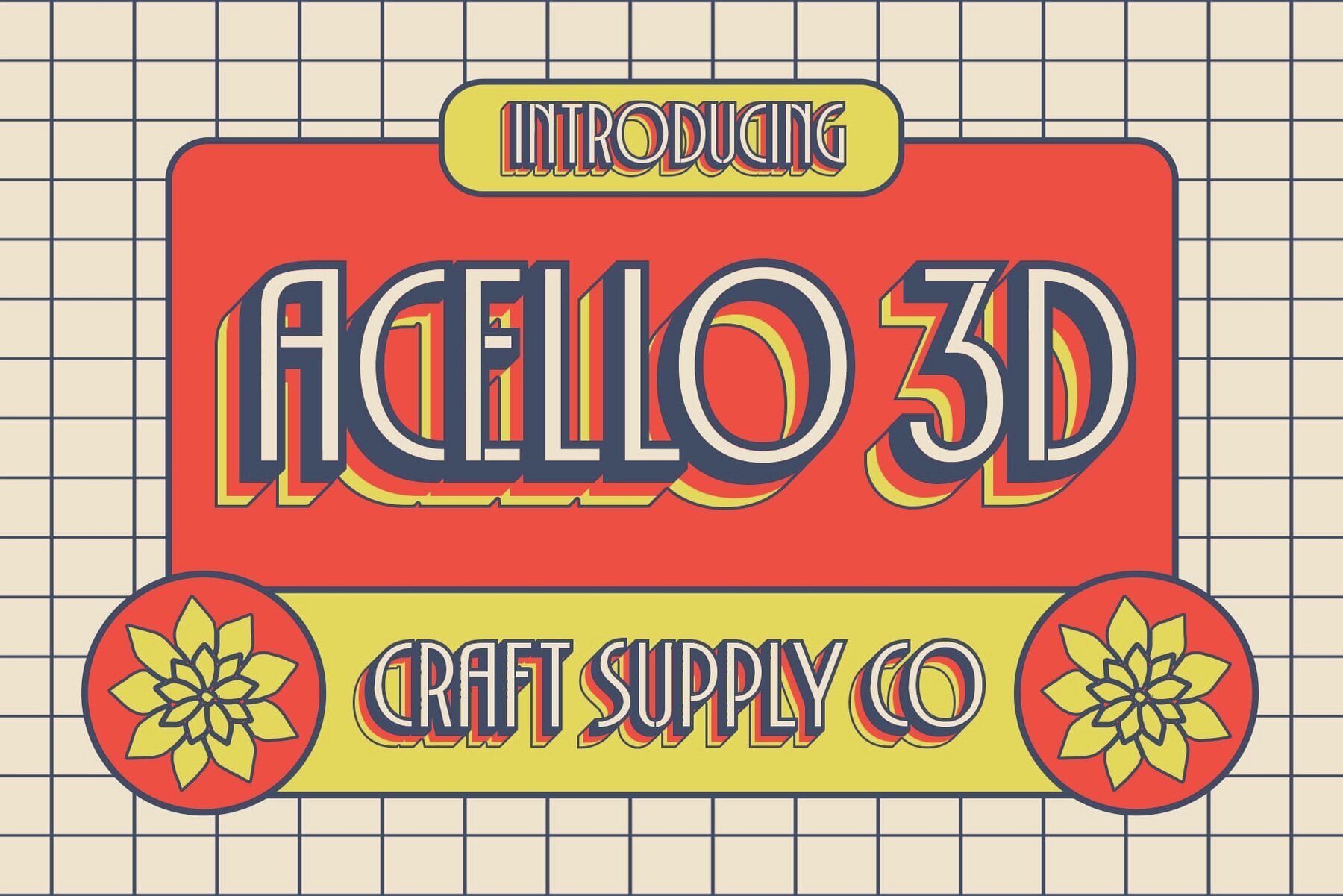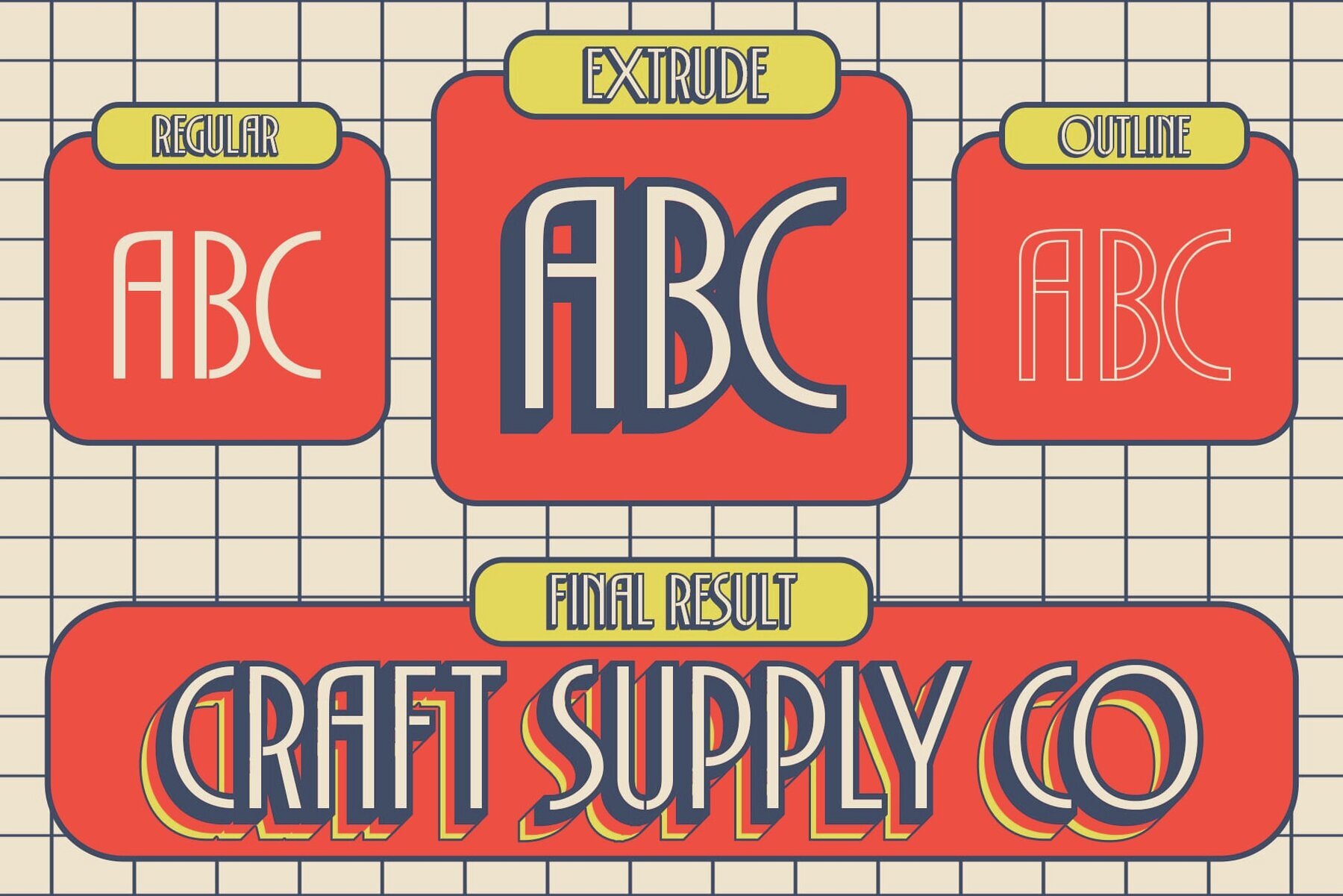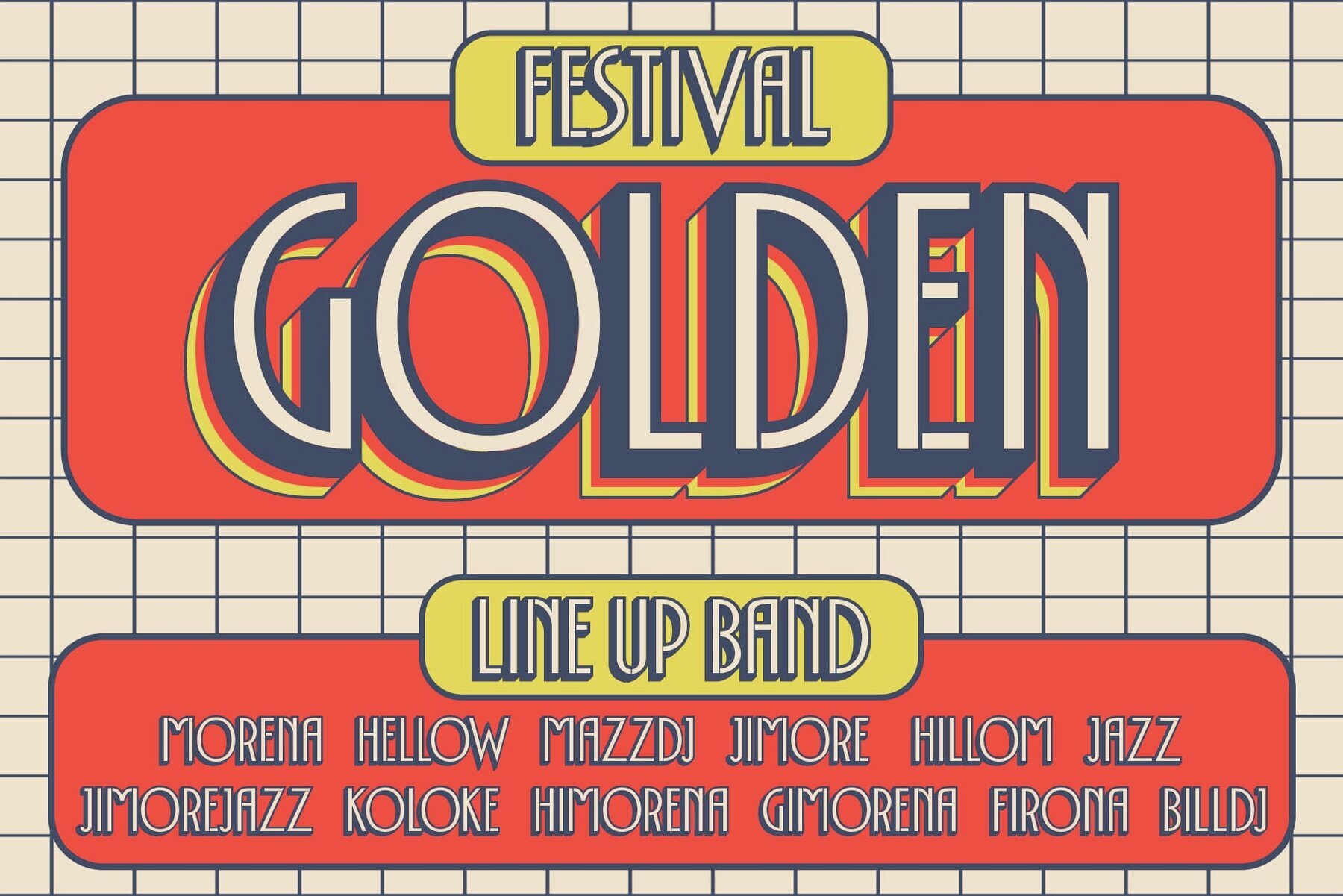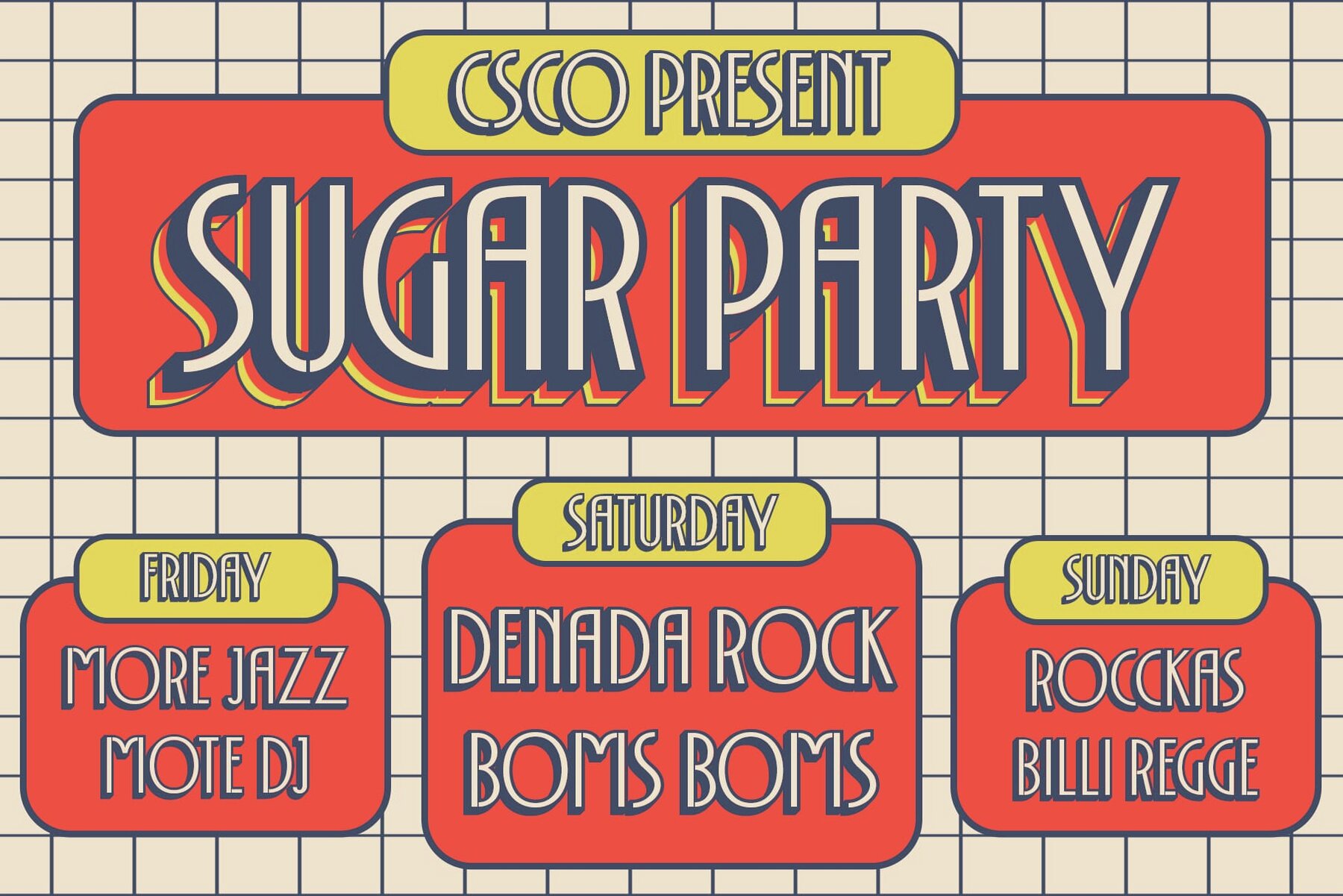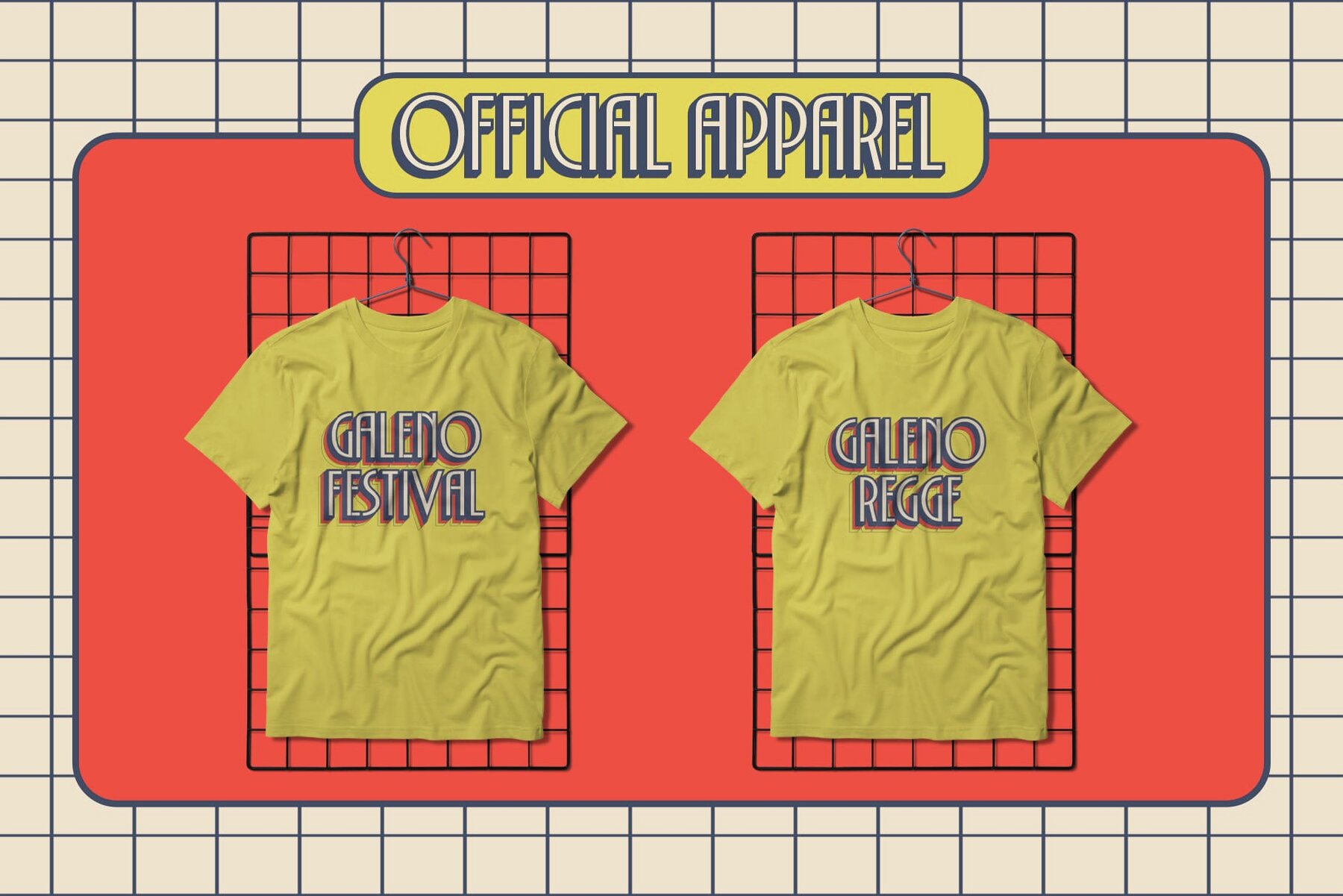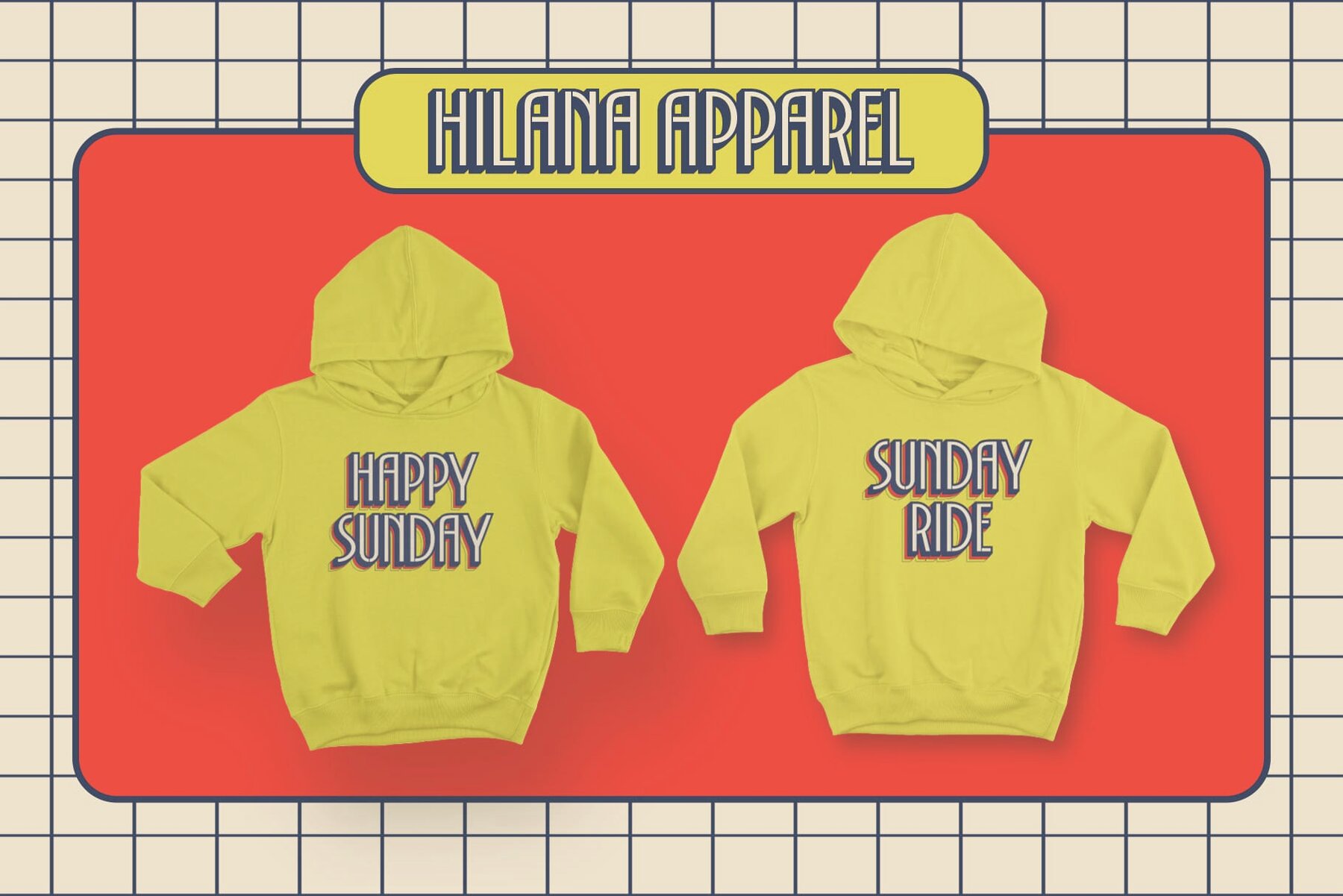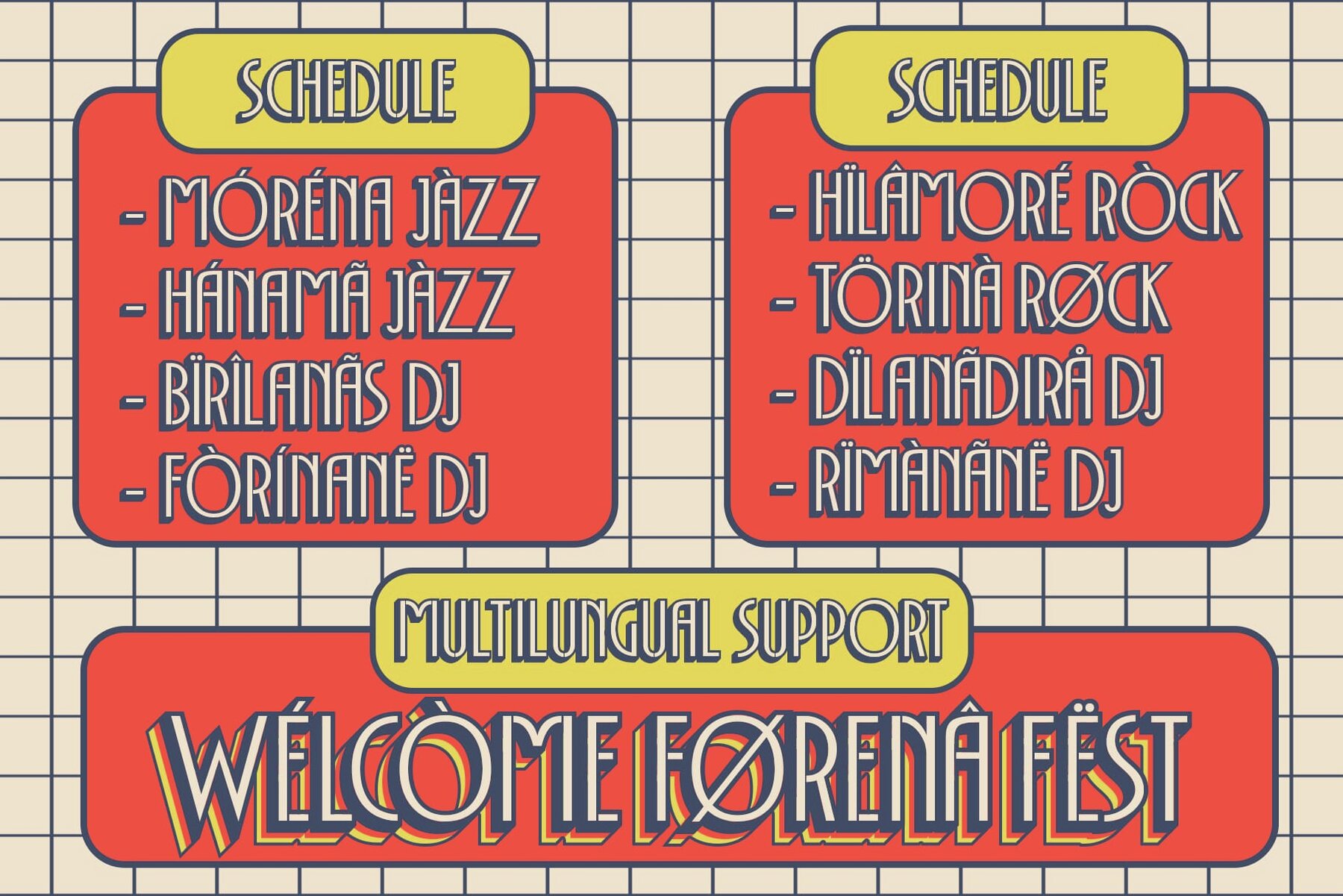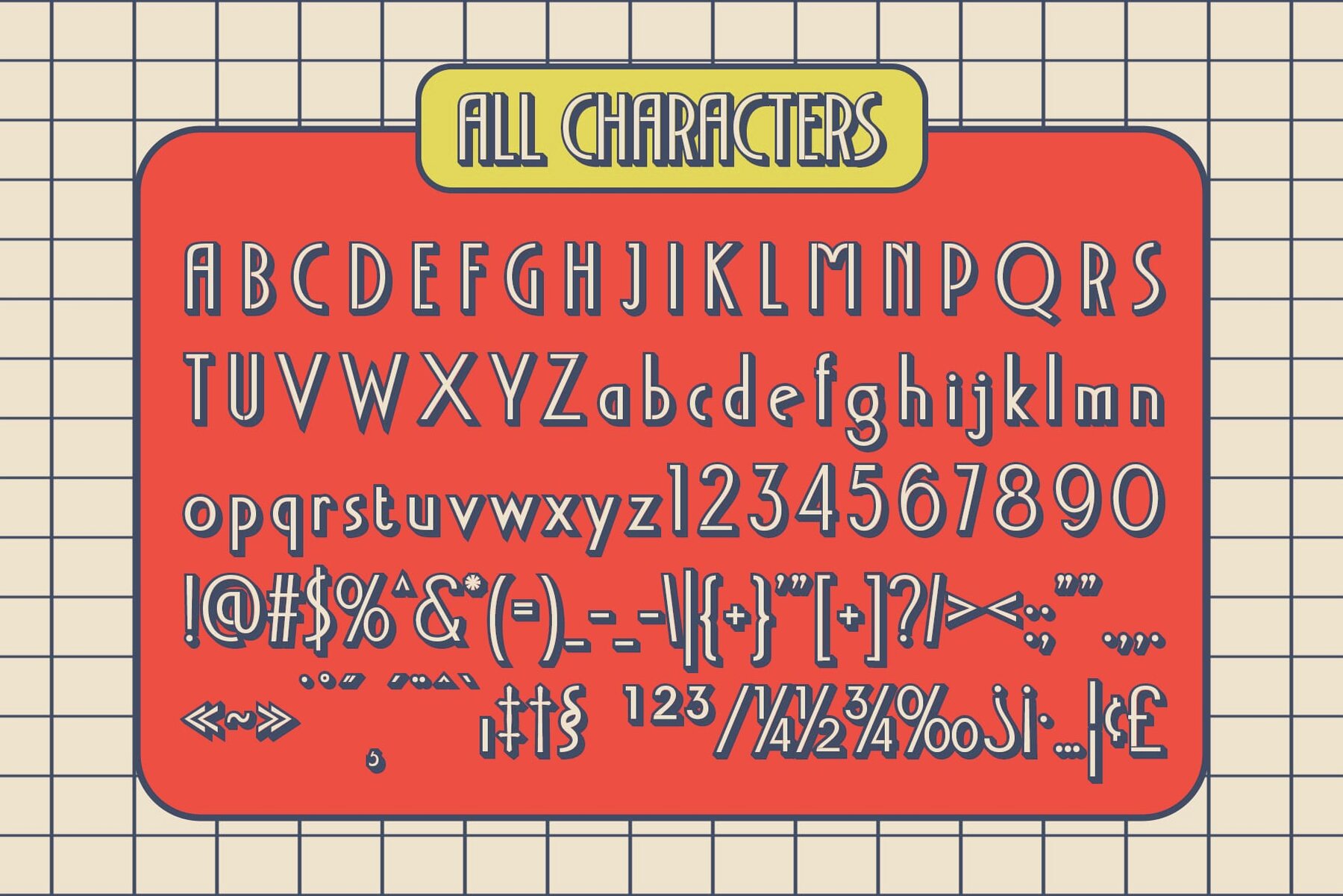
Acello 3D Font
This versatile font strikes a balance between vintage charm and modern elegance, influenced by the iconic Art Deco style. Sleek Sans Serif Design: Acello 3D features low-contrast strokes and condensed proportions, offering a sophisticated take on the Art Deco aesthetic. With its geometric shapes and clean lines, this font embodies the elegance and glamour of the 1920s and 1930s, giving a nod to its rich history. Designed with space efficiency in mind, Acello 3D ensures clarity and readability in tight spaces, featuring meticulously crafted letters. This modern take on Art Deco typography features low-contrast strokes and 3D effects, adding depth and visual interest to design projects. With its sleek, condensed design and Art Deco inspiration, Acello 3D adds elegance and refinement across various applications, from branding to digital interfaces. The typeface is user-friendly and does not require specialized software.Acello 3D: Sophisticated Art Deco-Inspired Font
Streamlined Elegance
Art Deco Influence
Condensed and Refined
Contemporary Interpretation
Timeless Sophistication